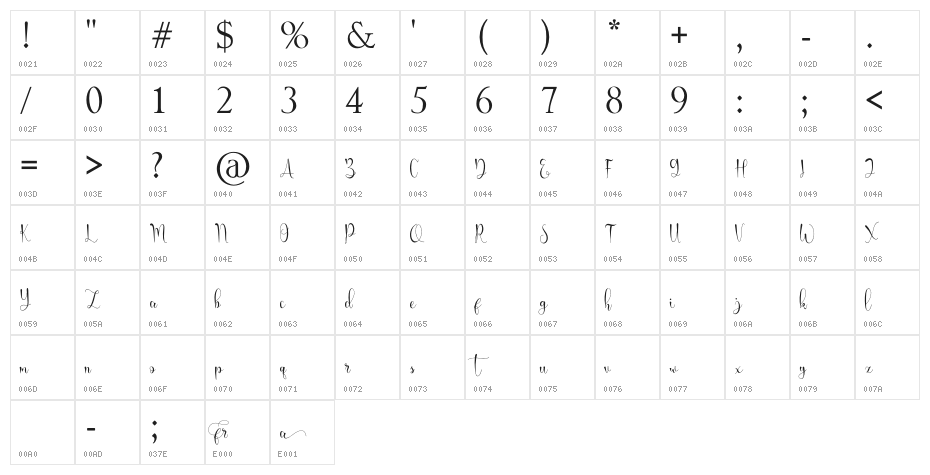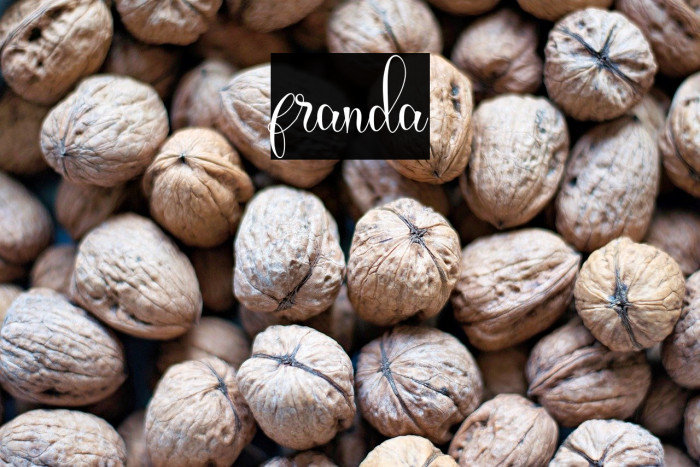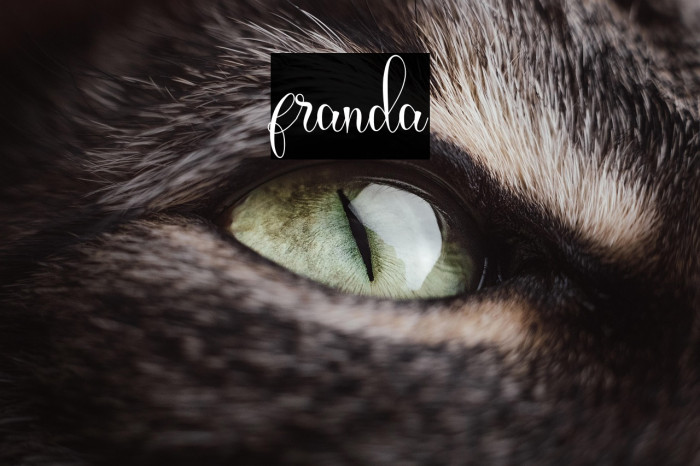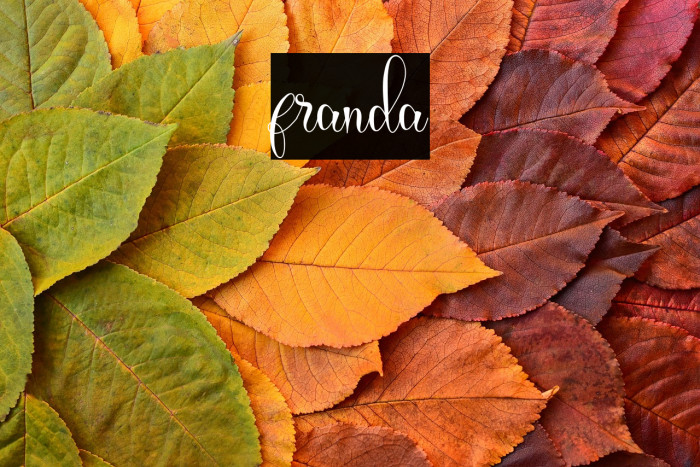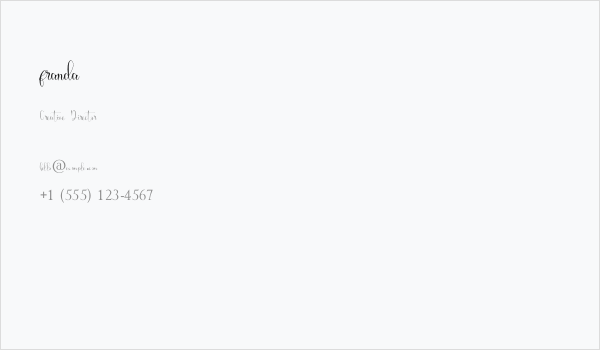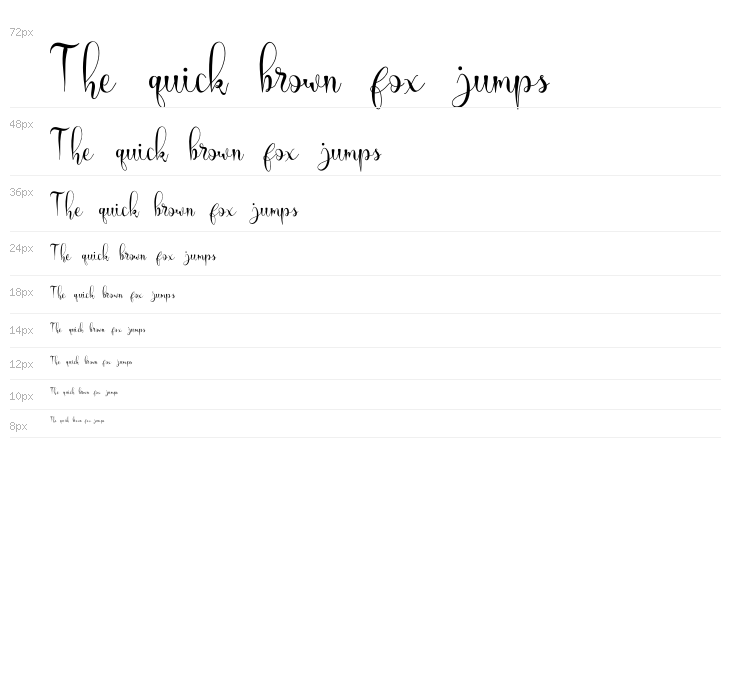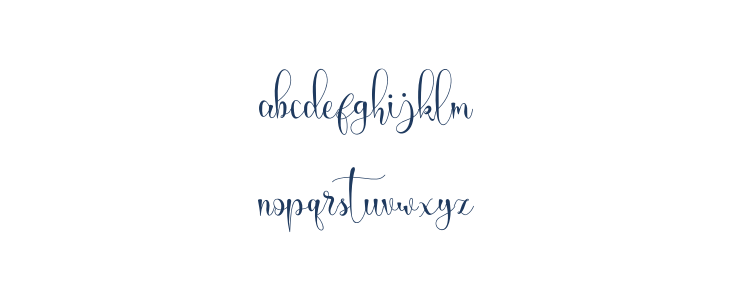
franda Font
franda Description
This font features an elegant and flowing script style with a touch of whimsy. The uppercase letters have a distinctive flair, with loops and swashes that add a decorative element. The lowercase letters maintain a consistent cursive style, offering a harmonious blend of sophistication and playfulness. The numerals are bold and clear, providing a nice contrast to the delicate letterforms. Special characters are designed with the same attention to detail, ensuring they complement the overall aesthetic. This font is perfect for projects that require a touch of elegance and creativity.
| Use Case | Logos, Invitations, Decorative text |
| Proposed Projects | Ideal for wedding invitations, greeting cards, branding, and logo design. |